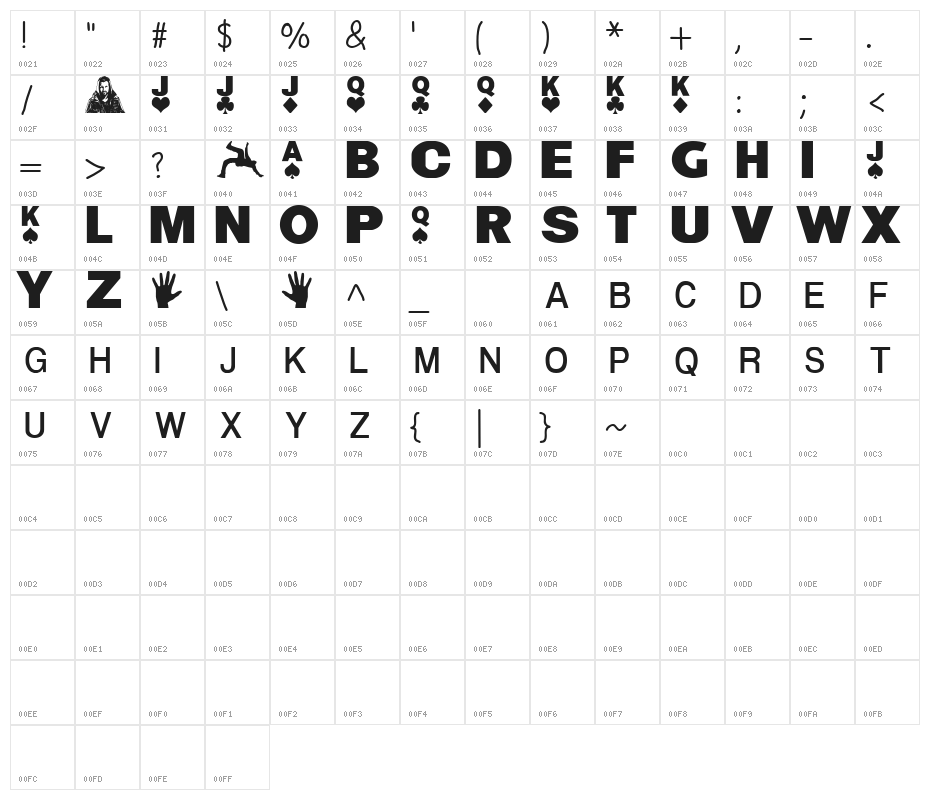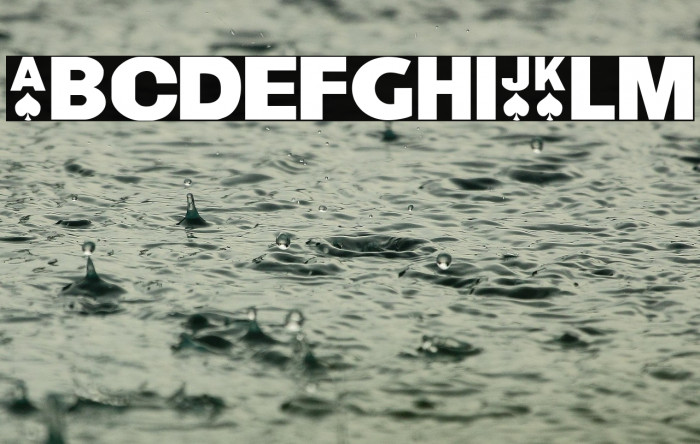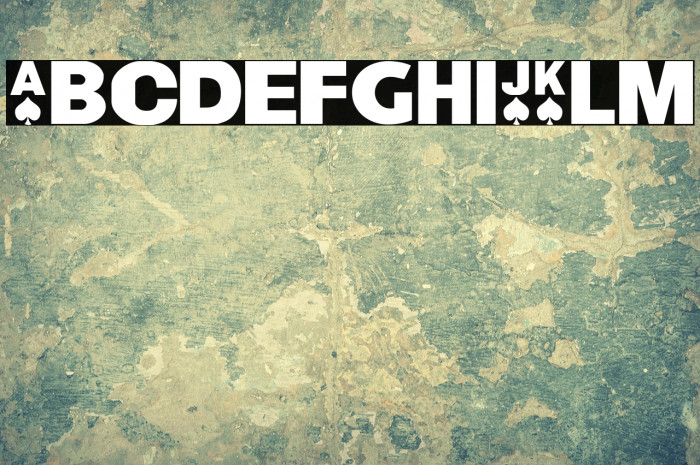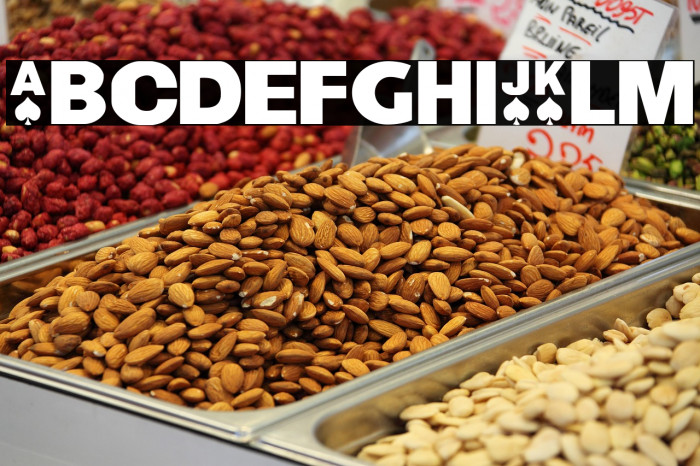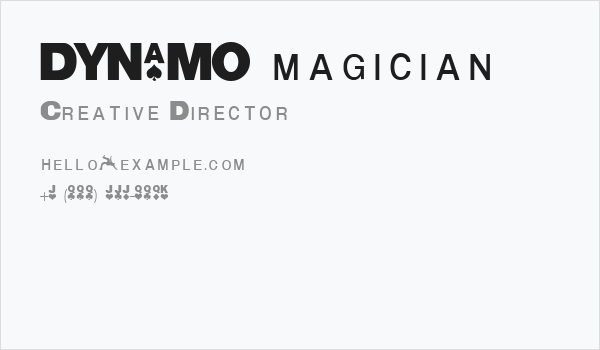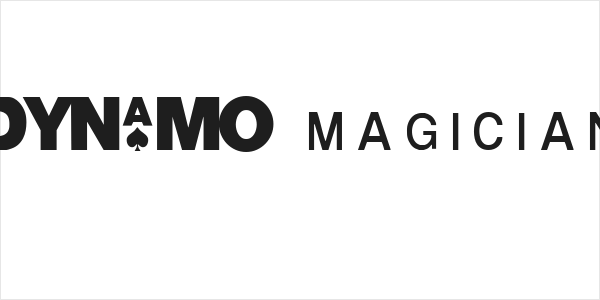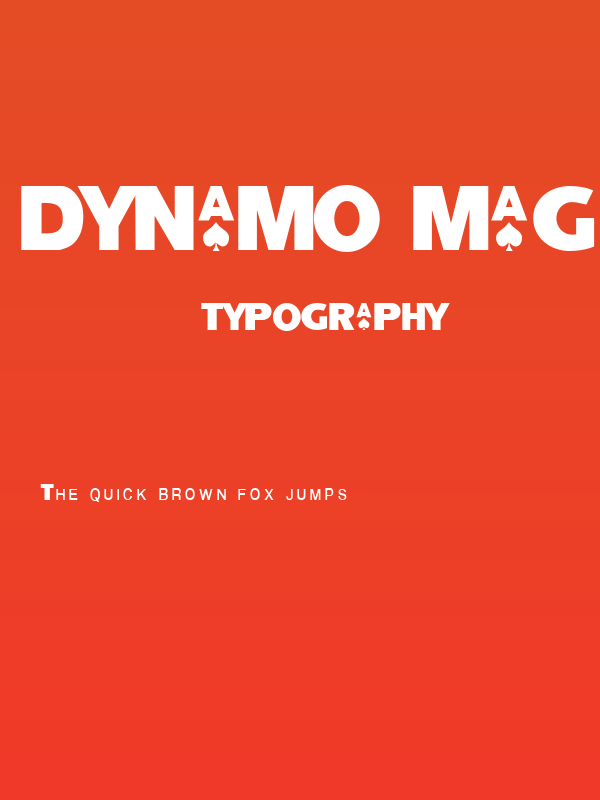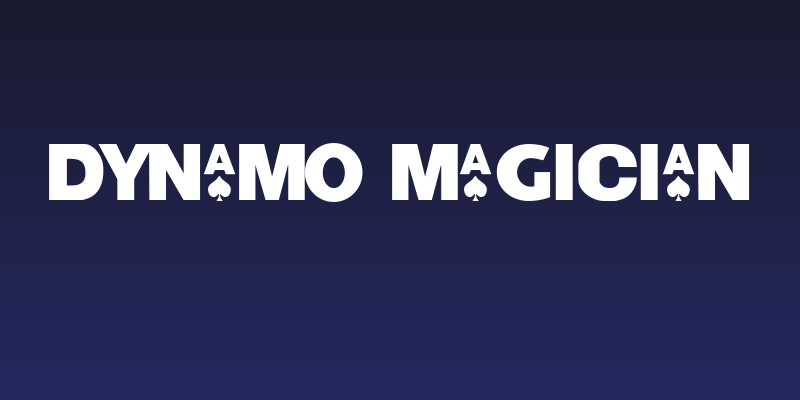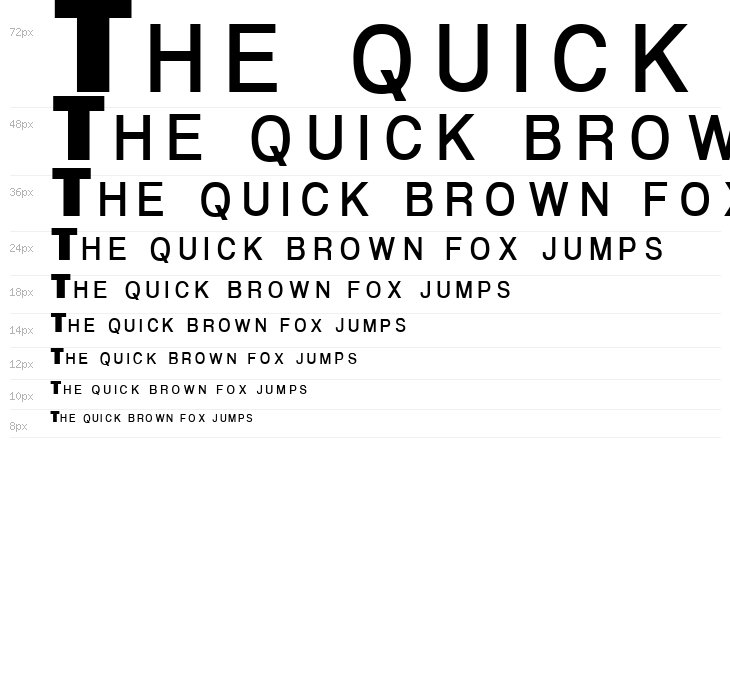
DYNAMO magician Font
DYNAMO magician Description
This bold and striking font features a unique blend of classic and modern elements, characterized by its thick, heavy strokes and playful incorporation of card suit symbols within certain characters. The uppercase letters are particularly bold, with some letters like 'A', 'J', 'K', and 'Q' featuring spade, club, diamond, and heart symbols, adding a decorative and thematic flair. The lowercase letters maintain a consistent weight, providing a balanced contrast to the uppercase. The numerals and special characters are designed to match the boldness and style of the alphabet, ensuring a cohesive look. The font's overall style is both decorative and modern, making it suitable for eye-catching headlines or thematic designs.
| Proposed Projects | Ideal for casino-themed designs, playing card branding, event posters, or any project requiring a bold and playful aesthetic. |